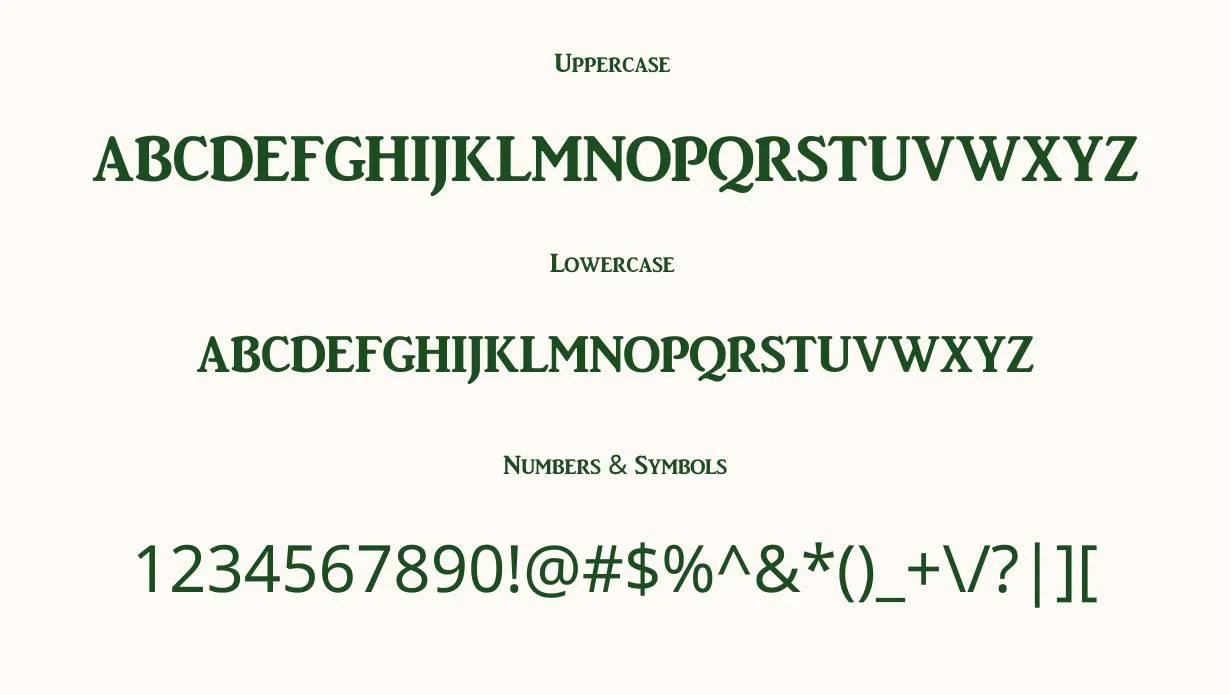
The font used in the Whole Foods logo is an essential element of the brand’s visual identity. With its clean and organic style, it reflects the company’s commitment to natural and fresh products.
This font is not just a typeface; it’s a visual representation of Whole Foods’ dedication to quality and health-conscious choices. Whether seen on their storefronts or packaging, the font is a crucial part of communicating the brand’s values.
| Name | Whole Foods Logo Font |
| Designer | Alan Bright |
| Style | Logo |